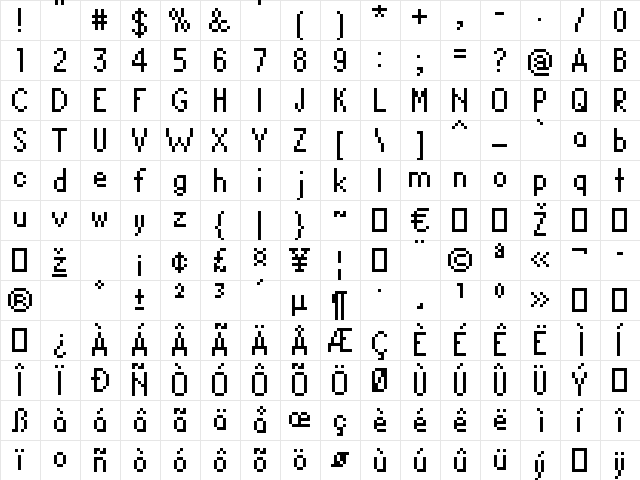
David Sans Condensed condensed
| Foundry | David Roberge |
| Designer | David Roberge |
Design Context for David Sans Condensed Typeface
David Sans Condensed takes a measured approach to typography — its balanced proportions and neutral character make it a reliable workhorse for both digital and print work. Its narrow stance lets it pack a punch even in space-constrained designs.